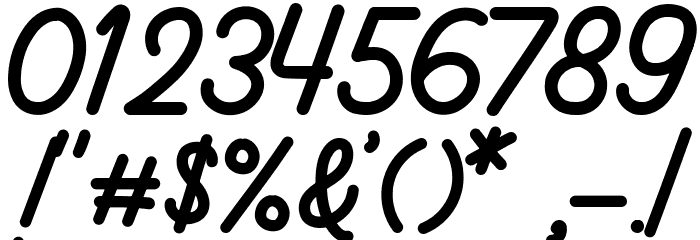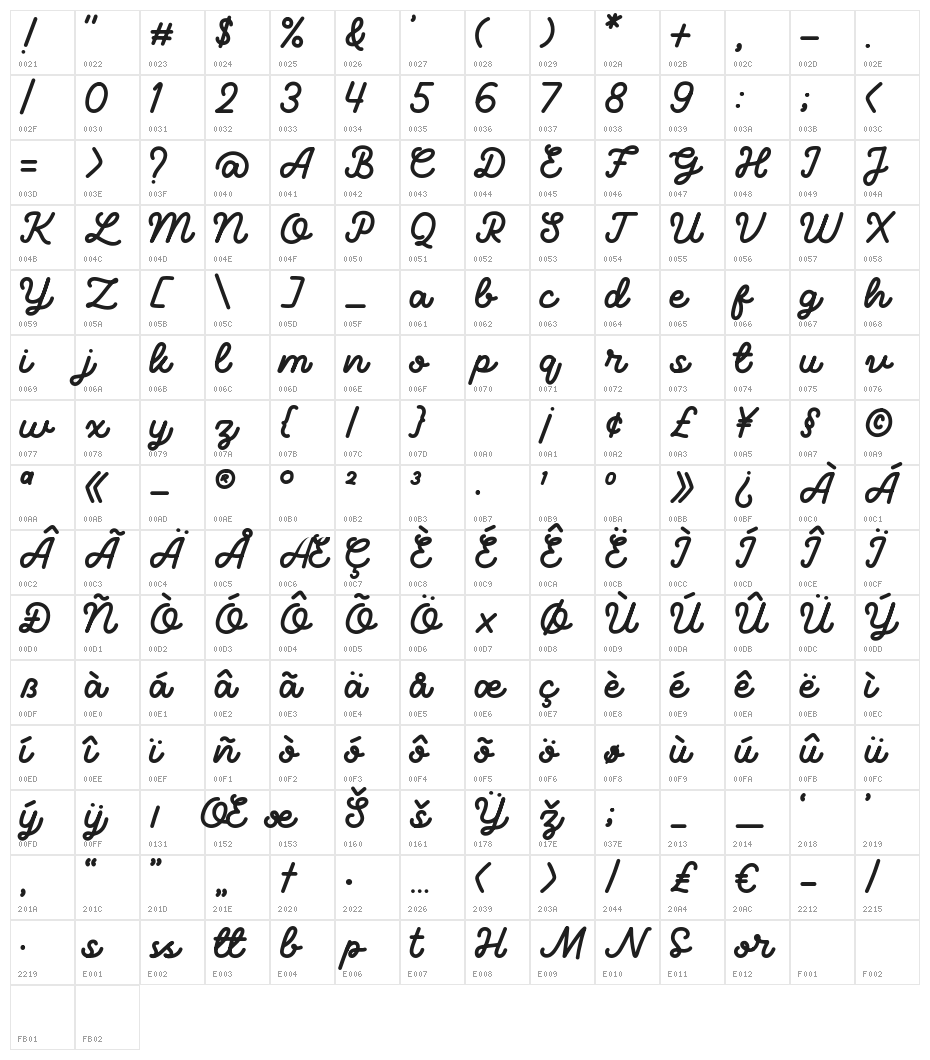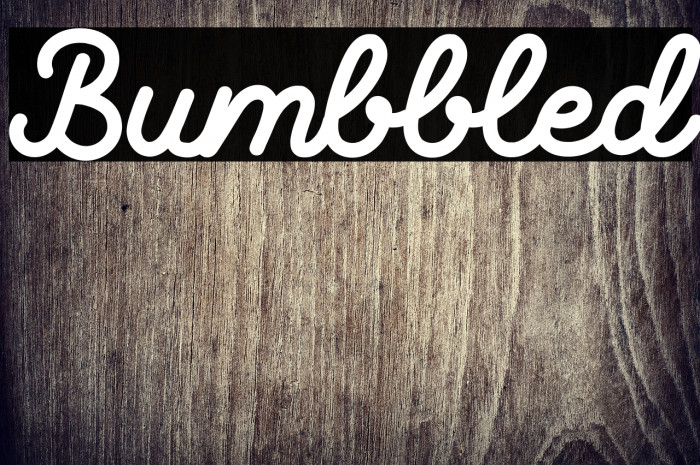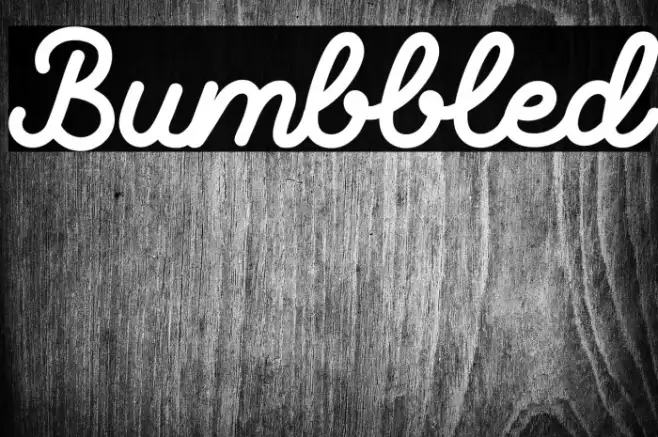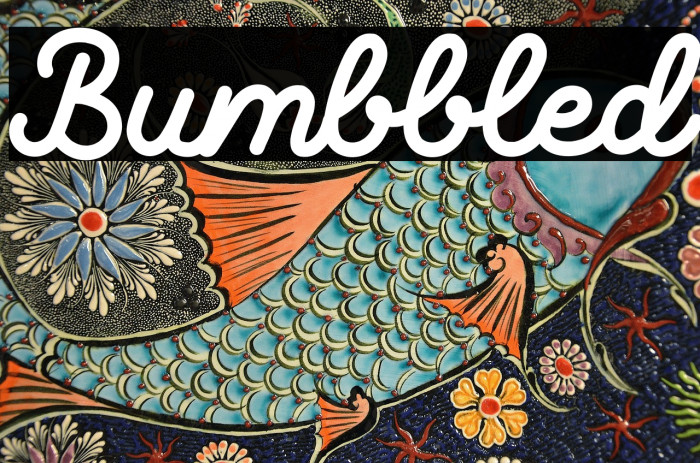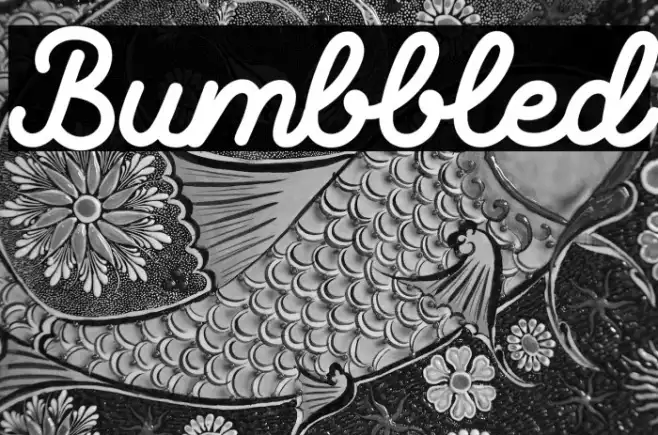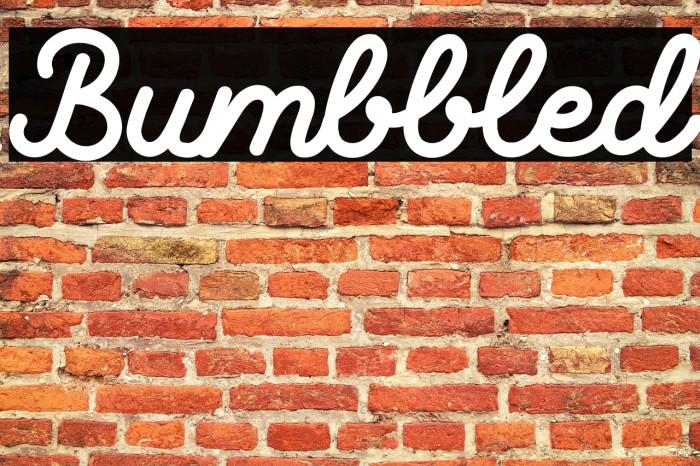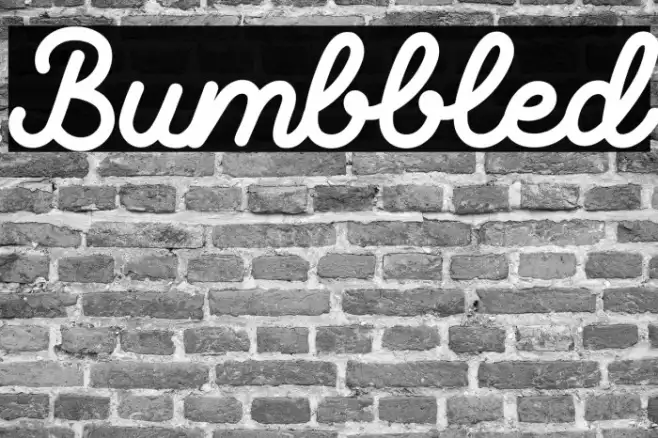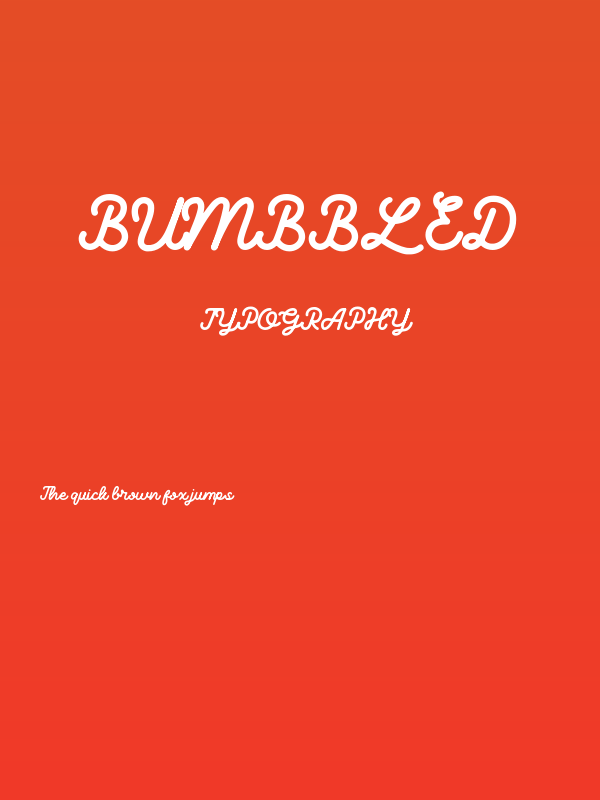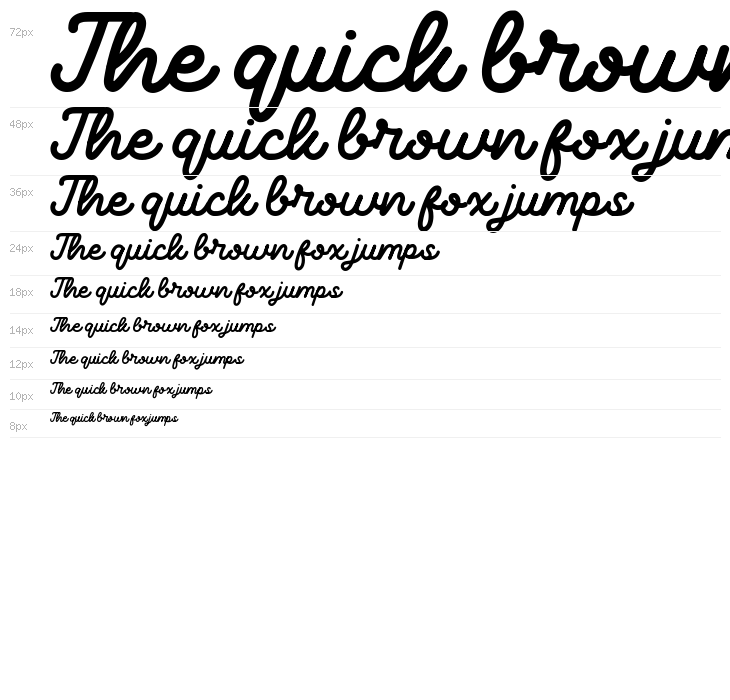
Bumbbled Font
Bumbbled Description
This font features a lively and flowing script style, characterized by its cursive, handwritten appearance. The letters are connected, creating a seamless and elegant look. The strokes are bold and consistent, adding a sense of confidence and flair. The uppercase letters maintain a uniform height, while the lowercase letters have a playful bounce, contributing to its dynamic nature. The numbers and special characters are designed to match the overall style, ensuring cohesiveness across all elements. This font exudes a sense of creativity and personal touch, making it ideal for projects that require a warm and inviting feel.
Use CaseLogos, Invitations, Greeting Cards
Proposed ProjectsIdeal for wedding invitations, greeting cards, personal branding, and creative logos.